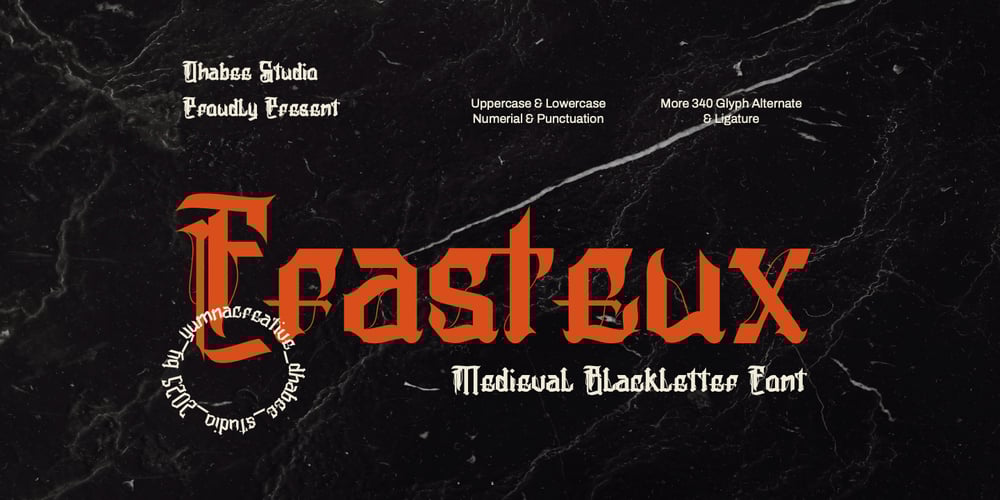
Frasteux
Frasteux font
Frasteux Font Family was designed by Dhimas Habibie and published by Yumnacreative. Frasteux contains 1 styles and family package options. Introducing Frasteux – Medieval Blackletter FontThis Font is a delicate, elegant and flowing handwritten font. It has beautiful and well as a unique blend of ligatures a letter, so that the authors compose it with a and little swirly embedding, so that a modern font is formed and ready to make a statement by adding elegant and unique flair to your next design project. Add it to your most creative ideas and notice how it makes them come alive!FEATURES- Uppercase and Lowercase letters- Alternate and Ligature- Numbering and Punctuations- Multilingual Supports- Works on PC or Mac- Simple Installation- Support Adobe Illustrator, Adobe Photoshop, Adobe InDesign, also works on Microsoft WordHope you Like it.Thanks.